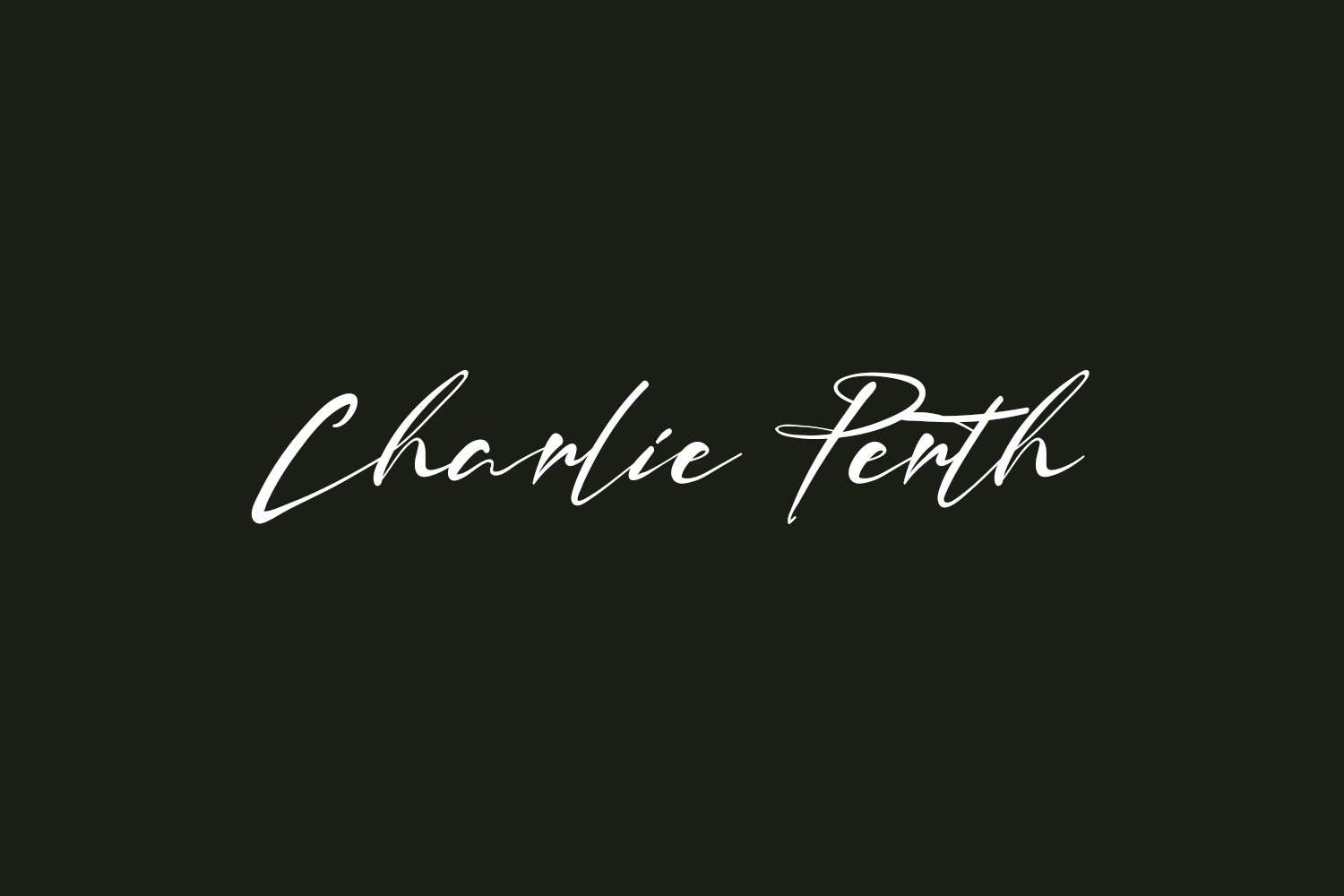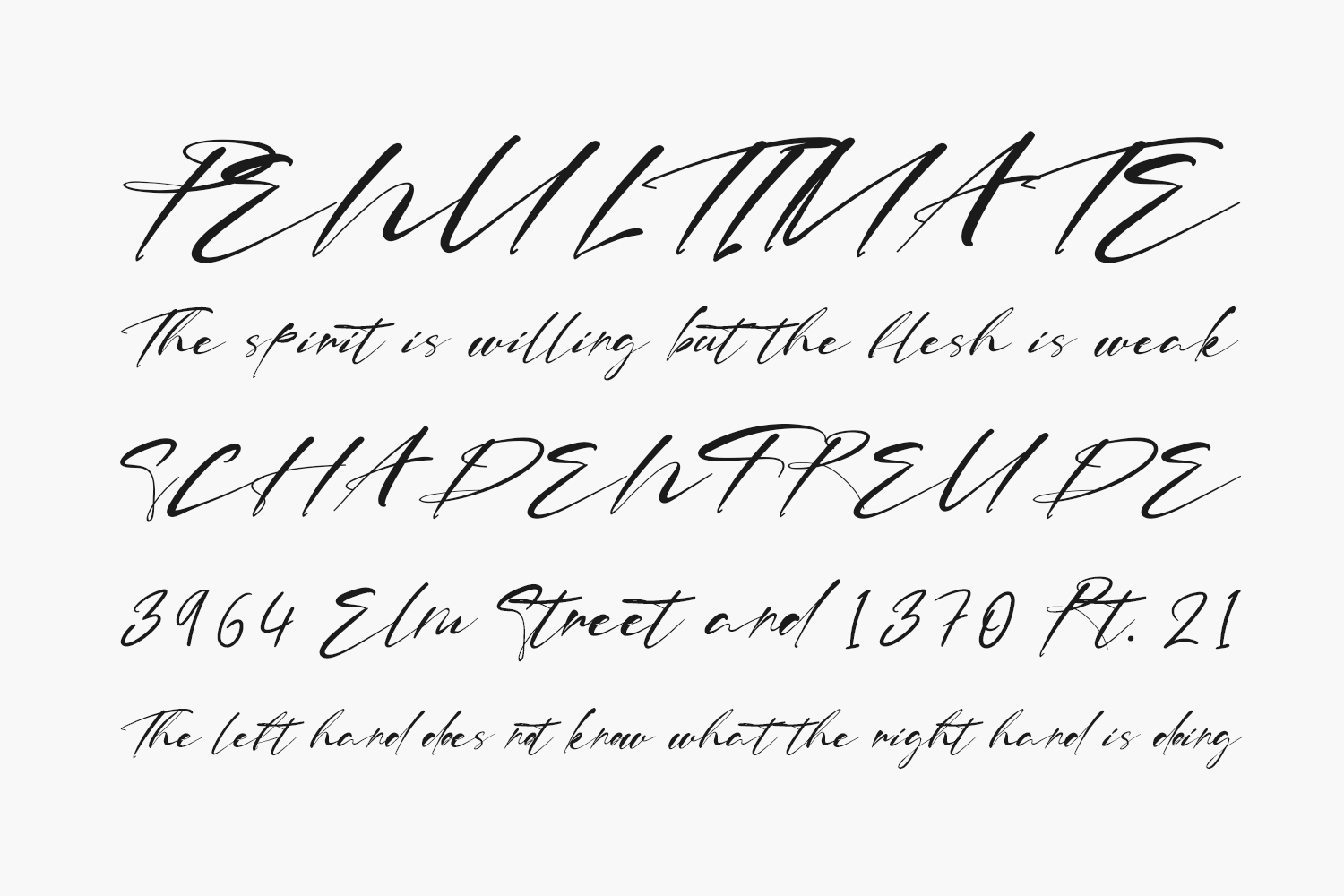
Charlie Perth Free Font is a chic, eye-catching, and flowing handwritten font. Whatever the topic, this font will be a wonderful asset to your font library, as it has the potential to enhance any creation. Charlie Perth Free Font was designed by Fhammadiq std and is free for personal use only. Please purchase the full version for commercial use.